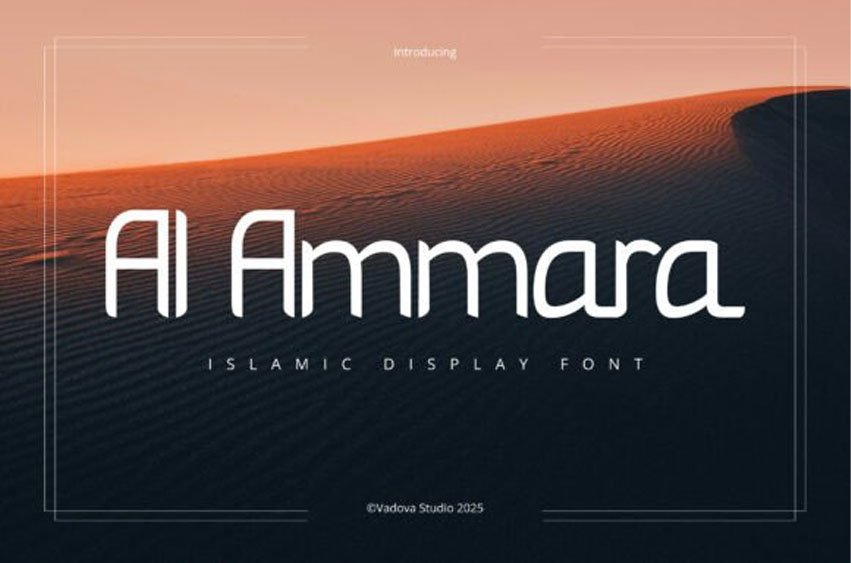
Al Ammara Font is a modern Islamic display font that combines clean geometric construction with subtle Arabic-inspired detailing. The letterforms feature smooth curves, minimal stroke contrast, and distinctive diacritic-style accents that bring a cultural and spiritual nuance to the design.
This font is highly relevant for modern Islamic-themed designs that require a clean and professional look with subtle cultural character. It works well for branding, Ramadan and Eid campaigns, mosque-related visuals, editorial layouts, and social media content.